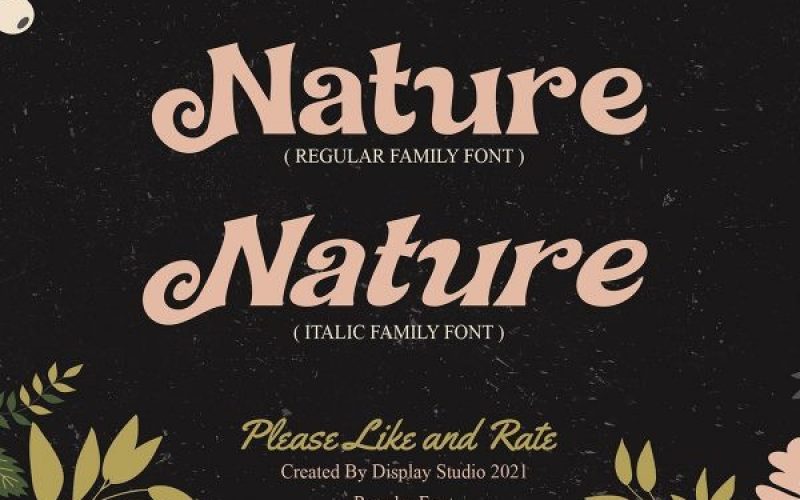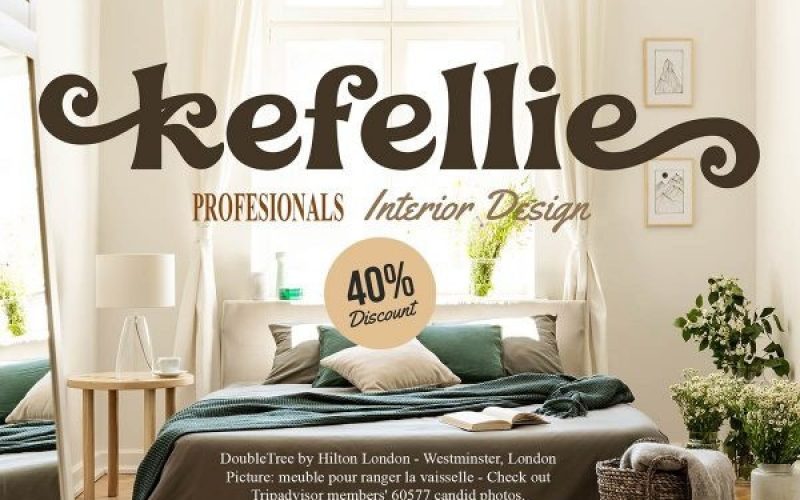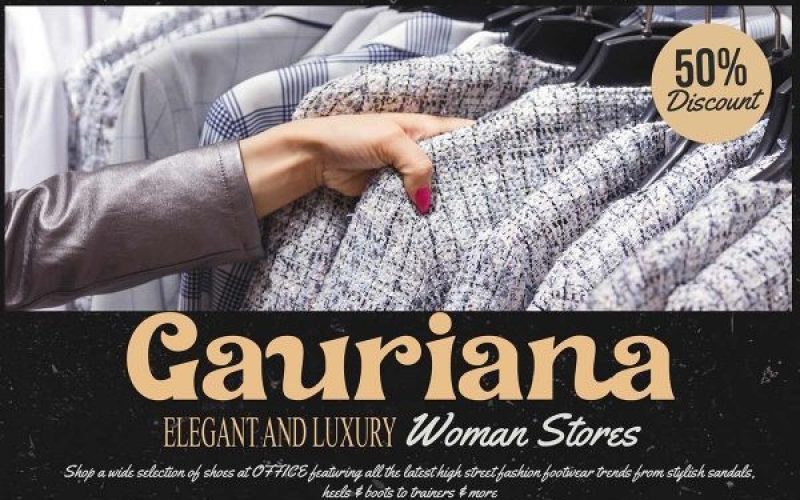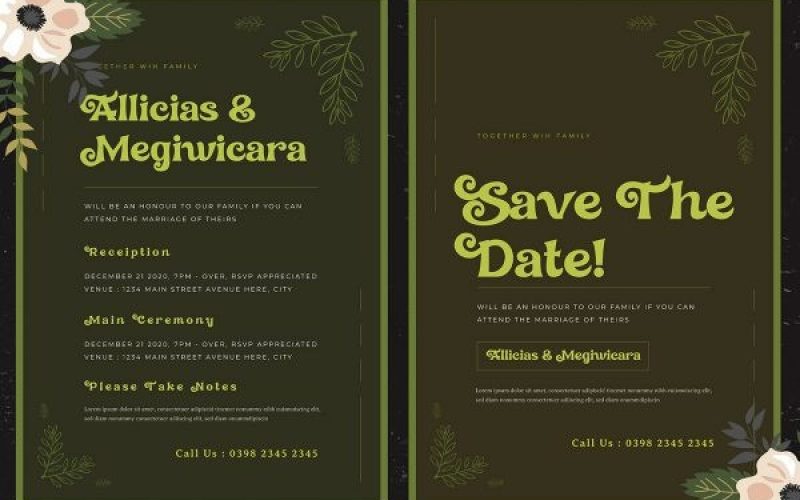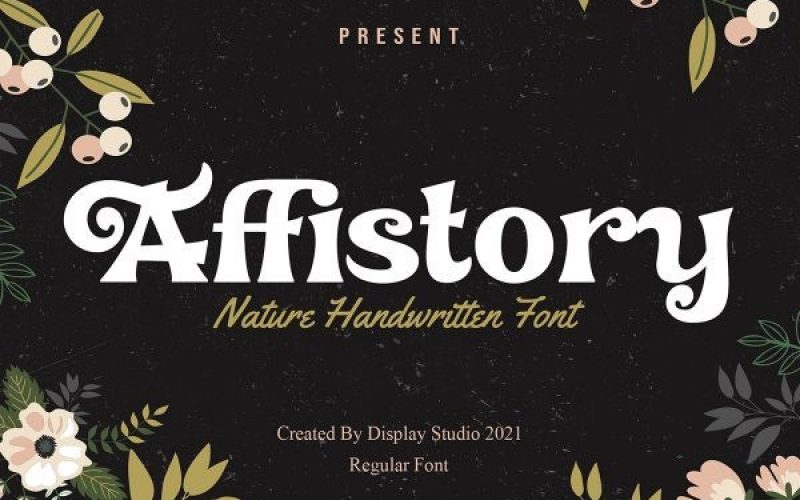
Affistory Serif Font
Introducing our New Font, very suitable as to make adorable invitation for wedding, birthday, special day. A collection of letters and numbers suitable your projects also great for Logotype, Branding Design, Logo Design, Digital Lettering Arts, T-Shirt/Apparel, Poster, Magazine, Signs, Advertising Design, and also perfect for your other projects branding.